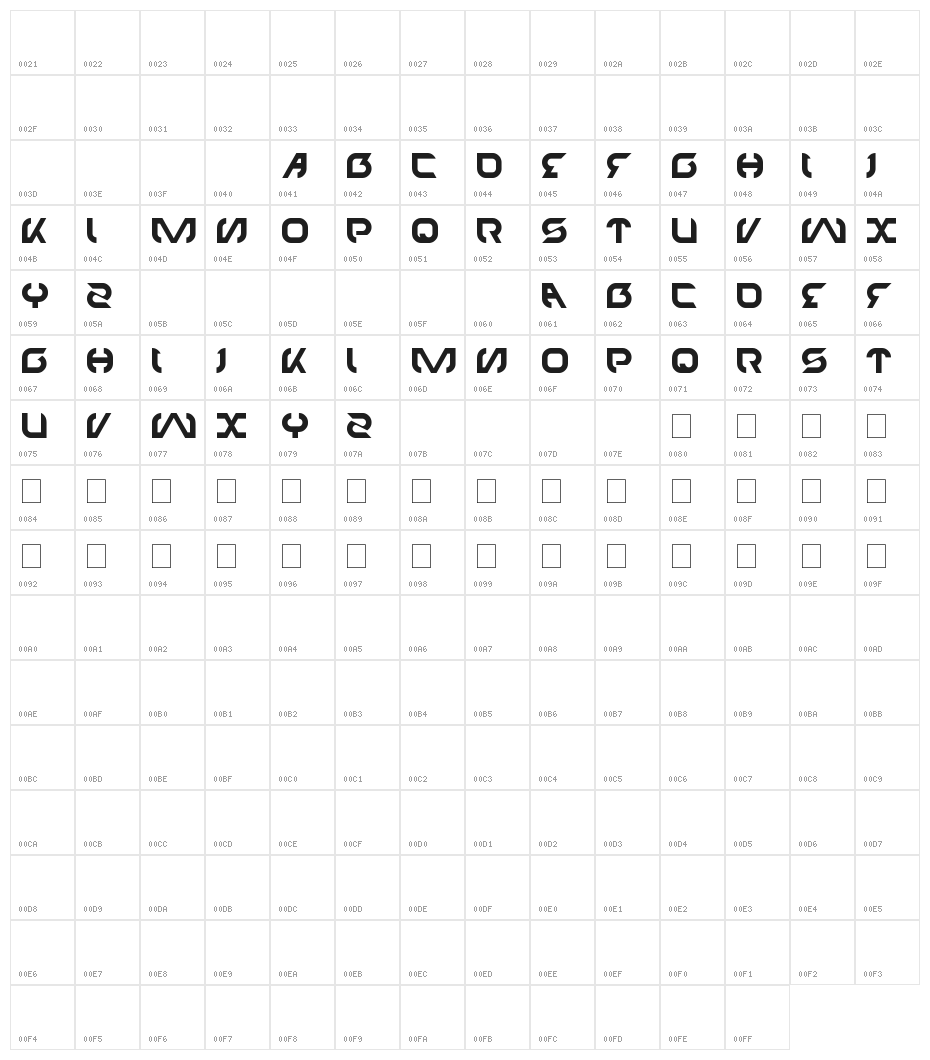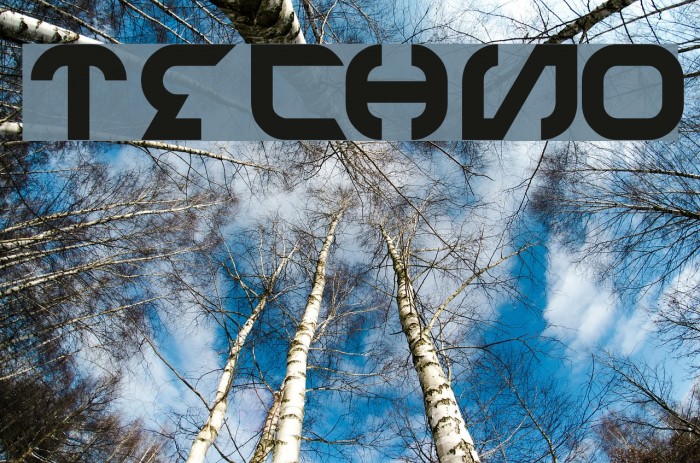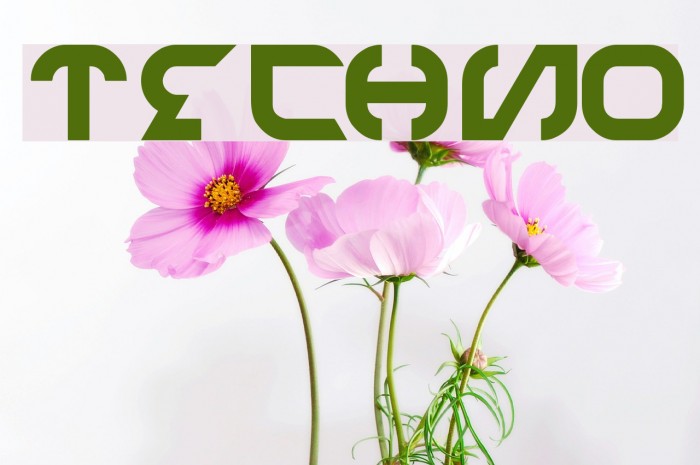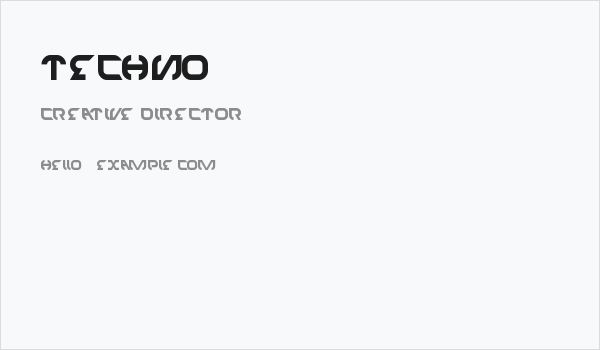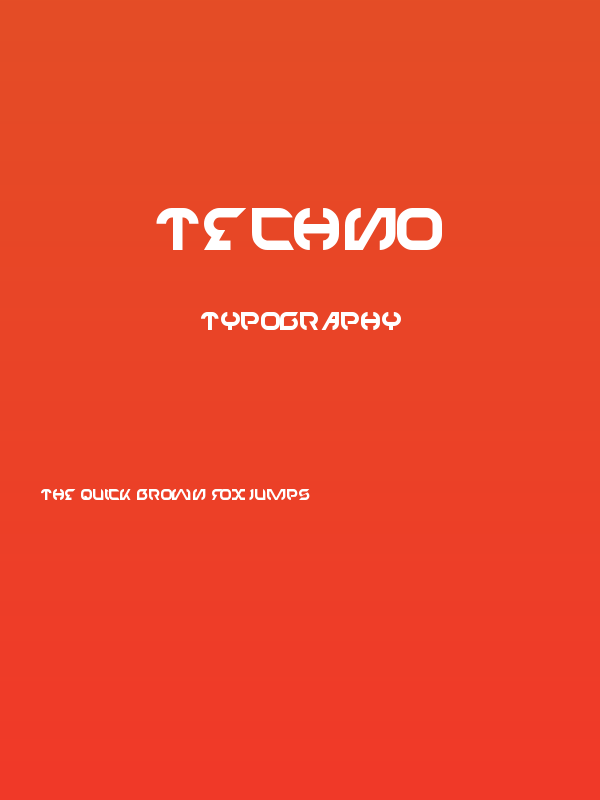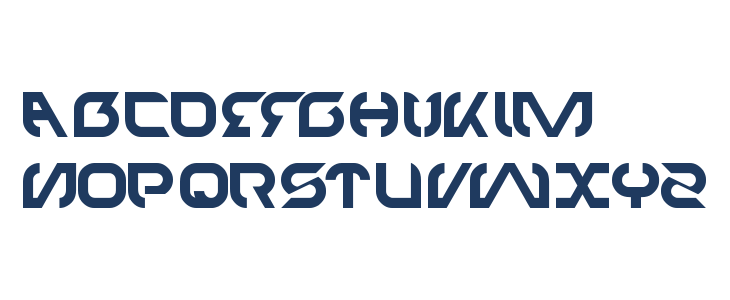
TECHNO Font
TECHNO Description
This font features a futuristic and angular design, characterized by sharp edges and geometric shapes. The uppercase letters exhibit a bold and assertive style, with each character having a distinct, almost robotic appearance. The font's unique structure gives it a high-tech and modern feel, making it ideal for projects that require a cutting-edge aesthetic. The consistent thickness of the strokes and the uniformity in character height contribute to its cohesive look. The font's design is both eye-catching and functional, suitable for various digital and print applications.
| Proposed Projects | Ideal for technology branding, sci-fi movie posters, video game titles, and digital interfaces. |